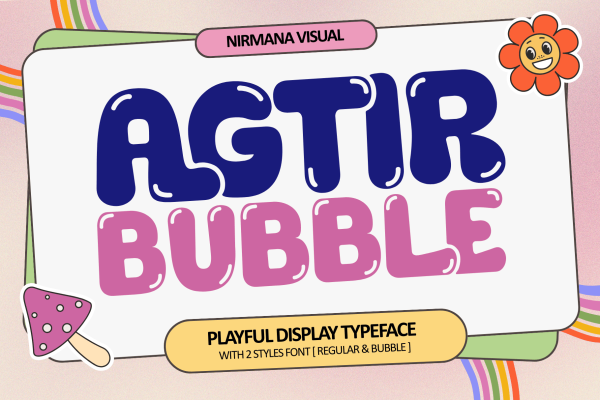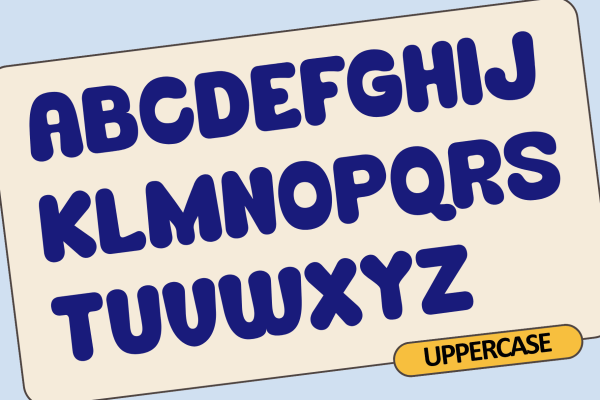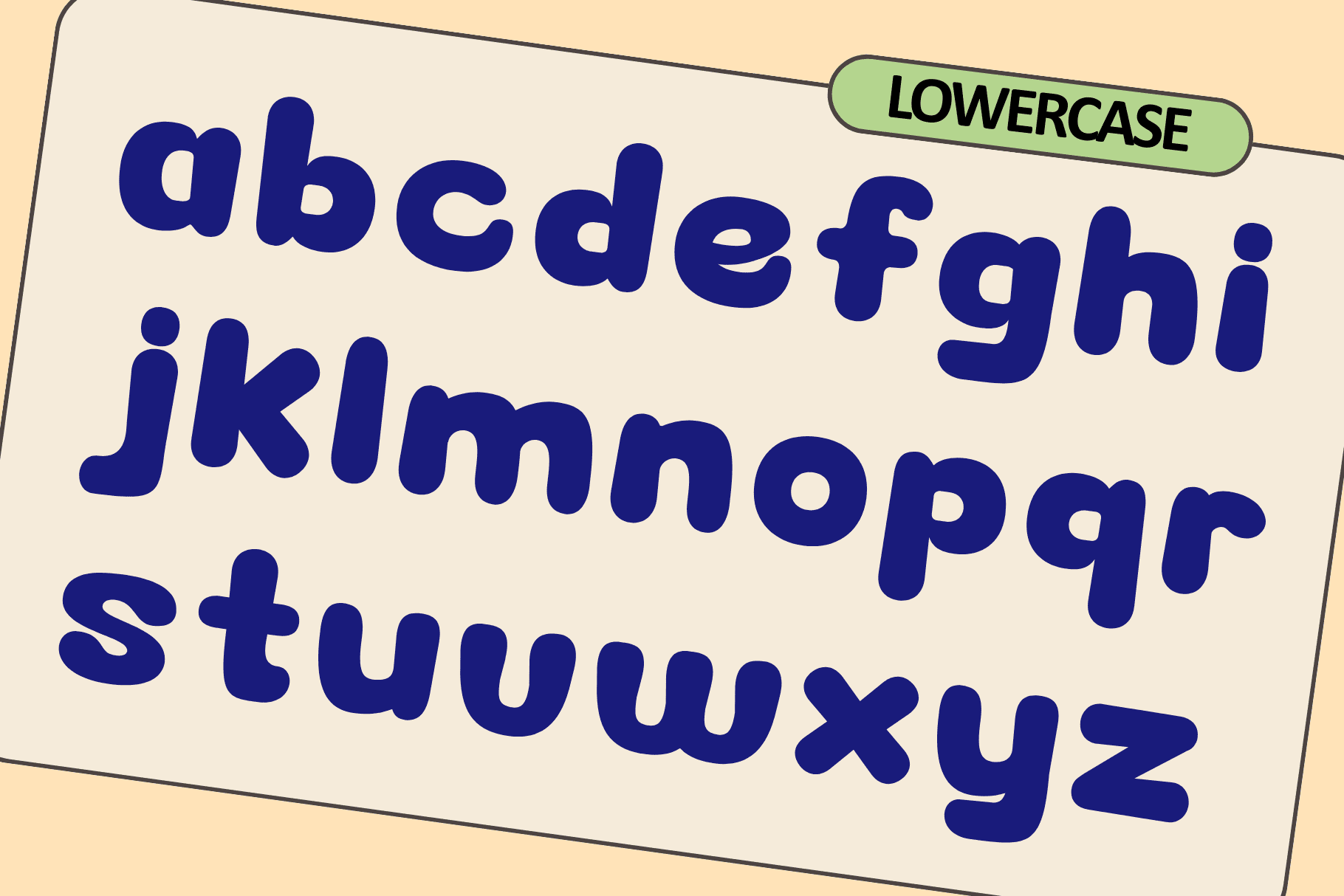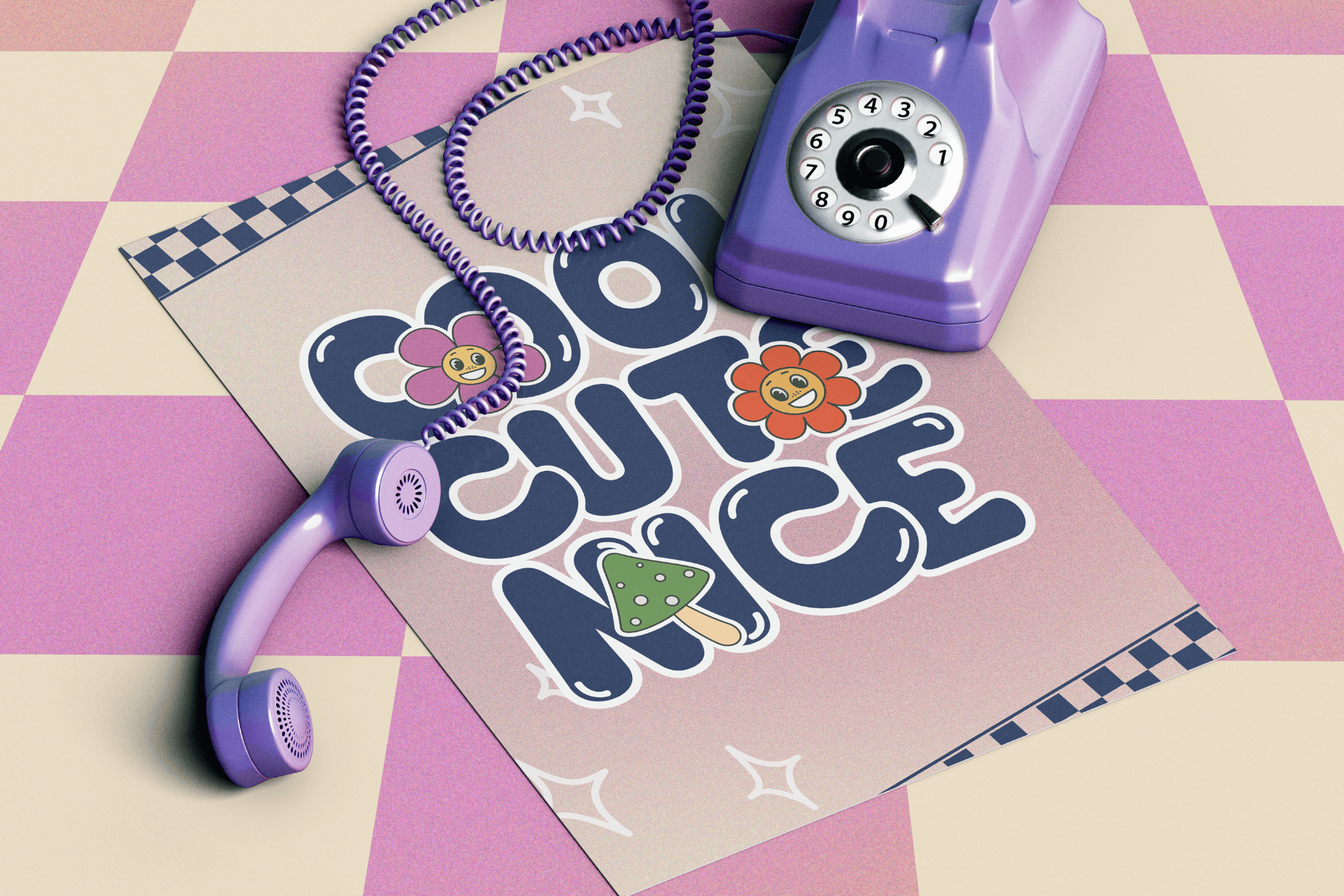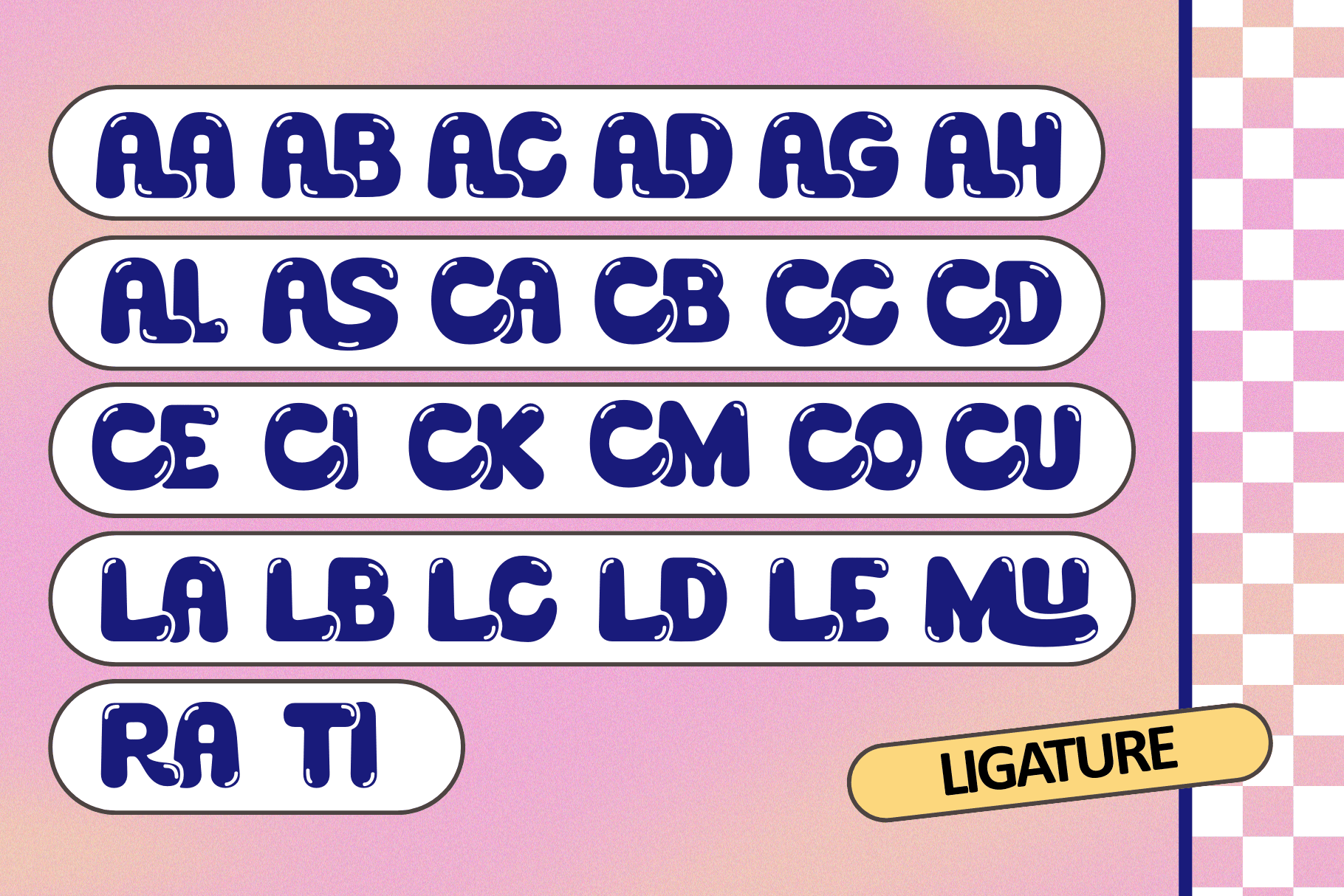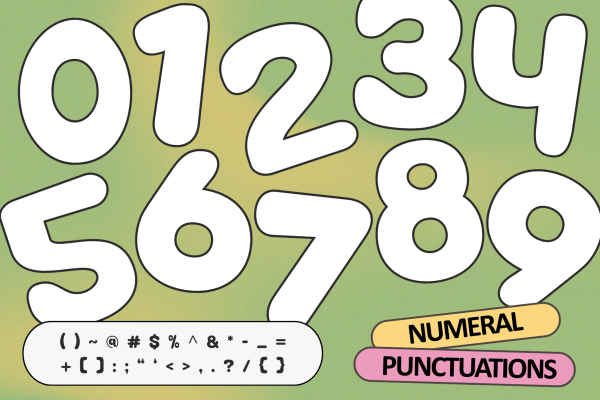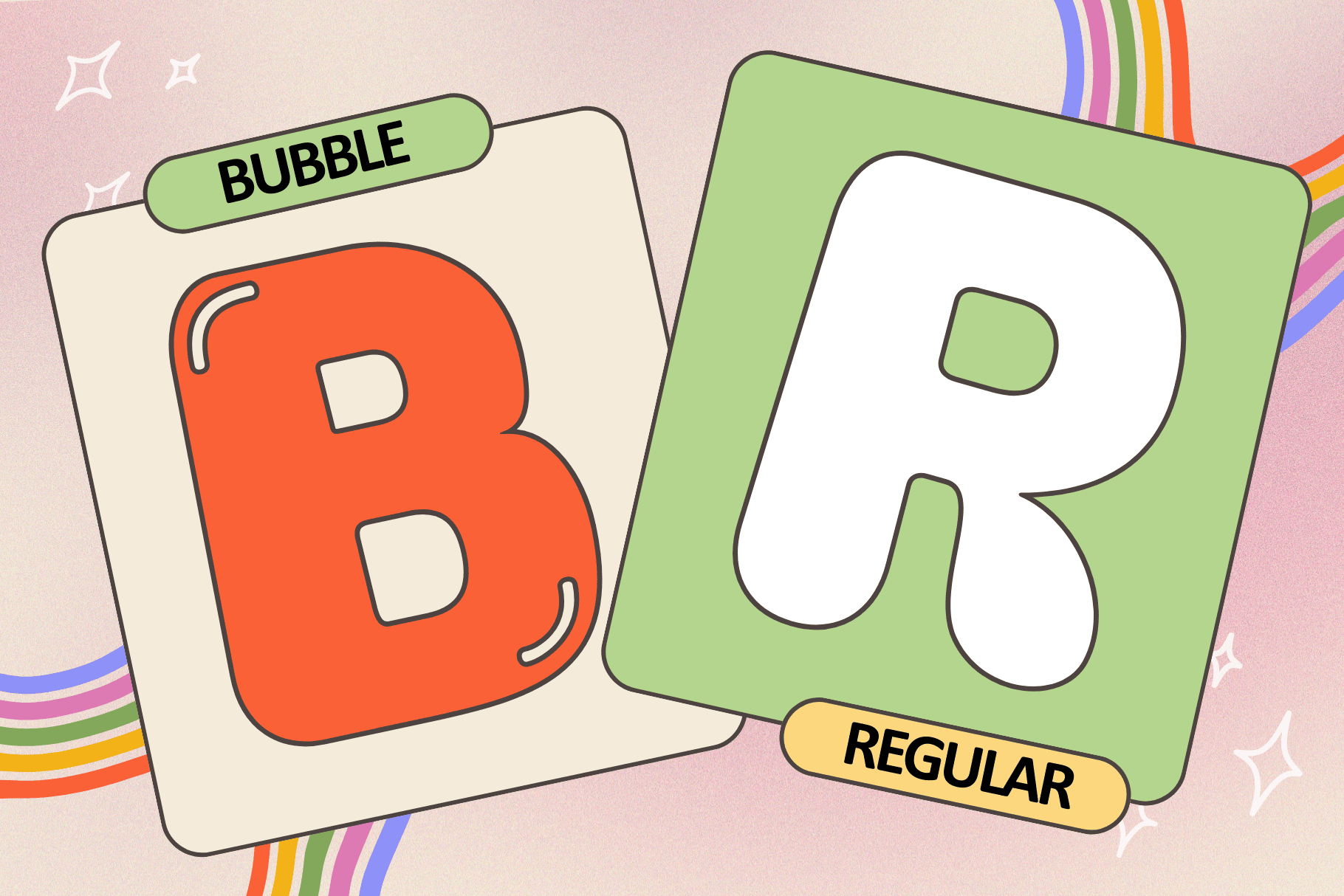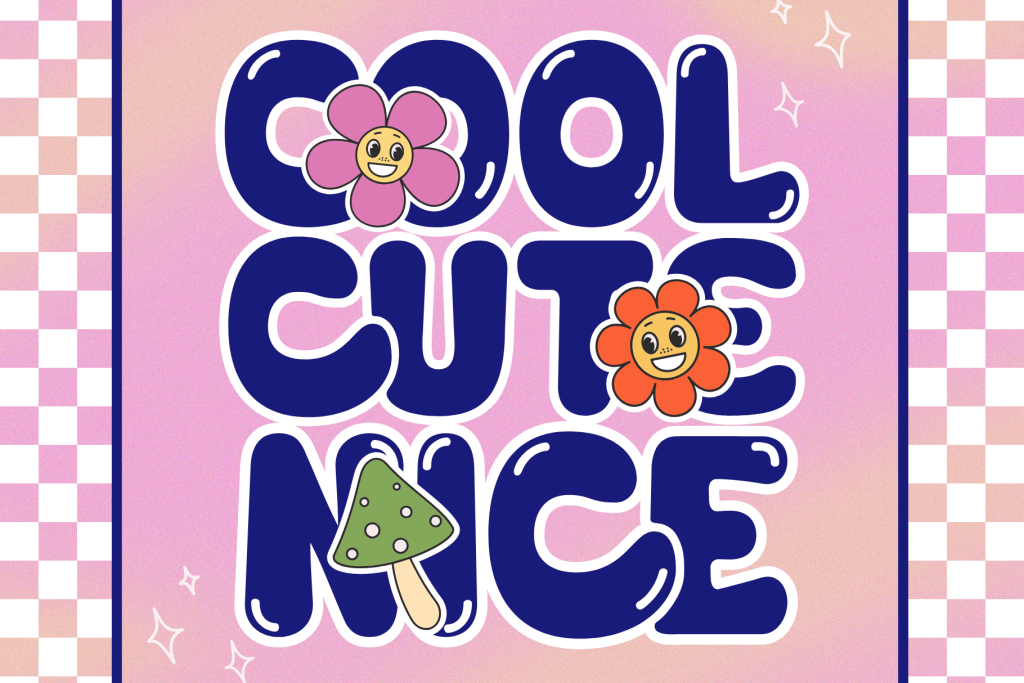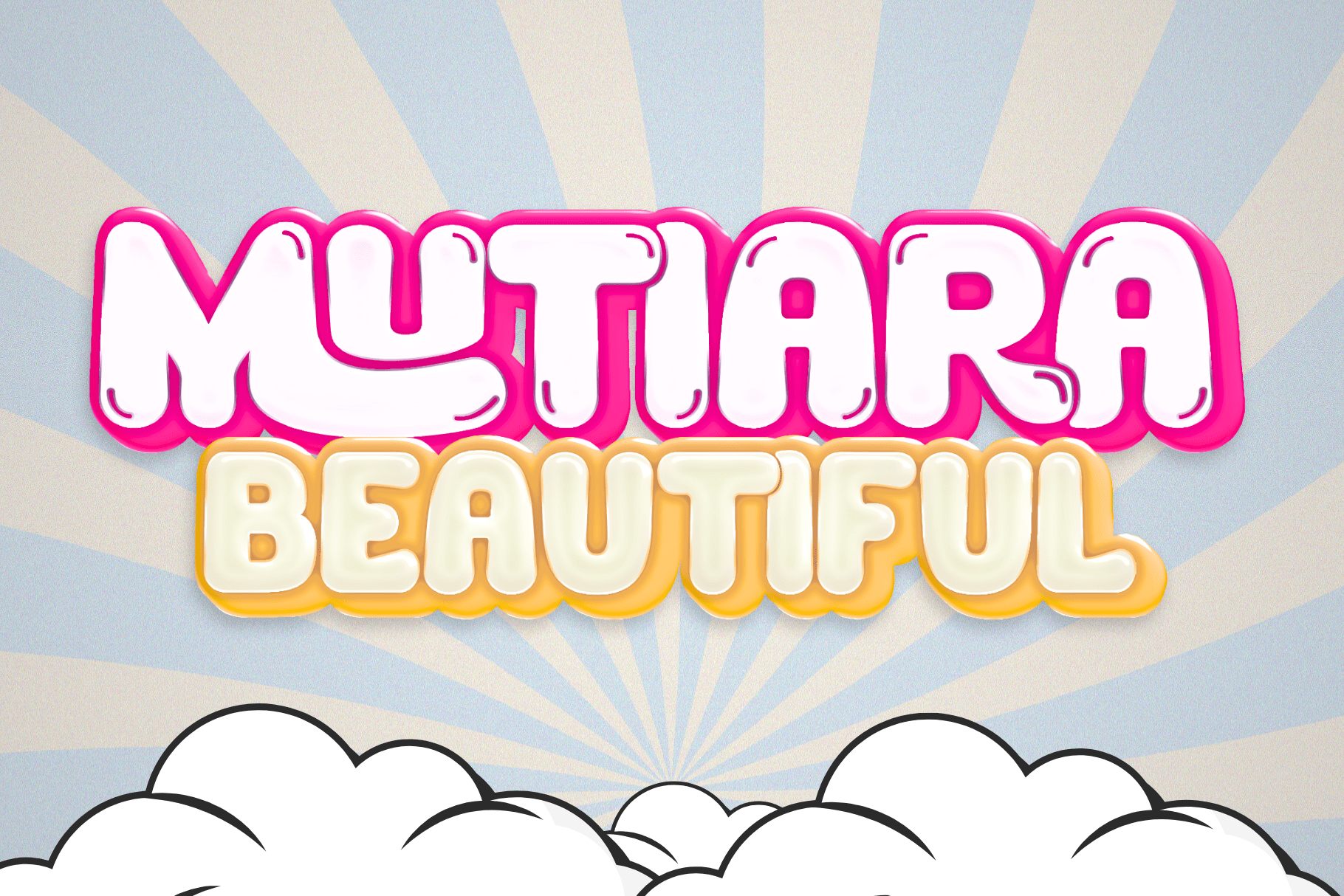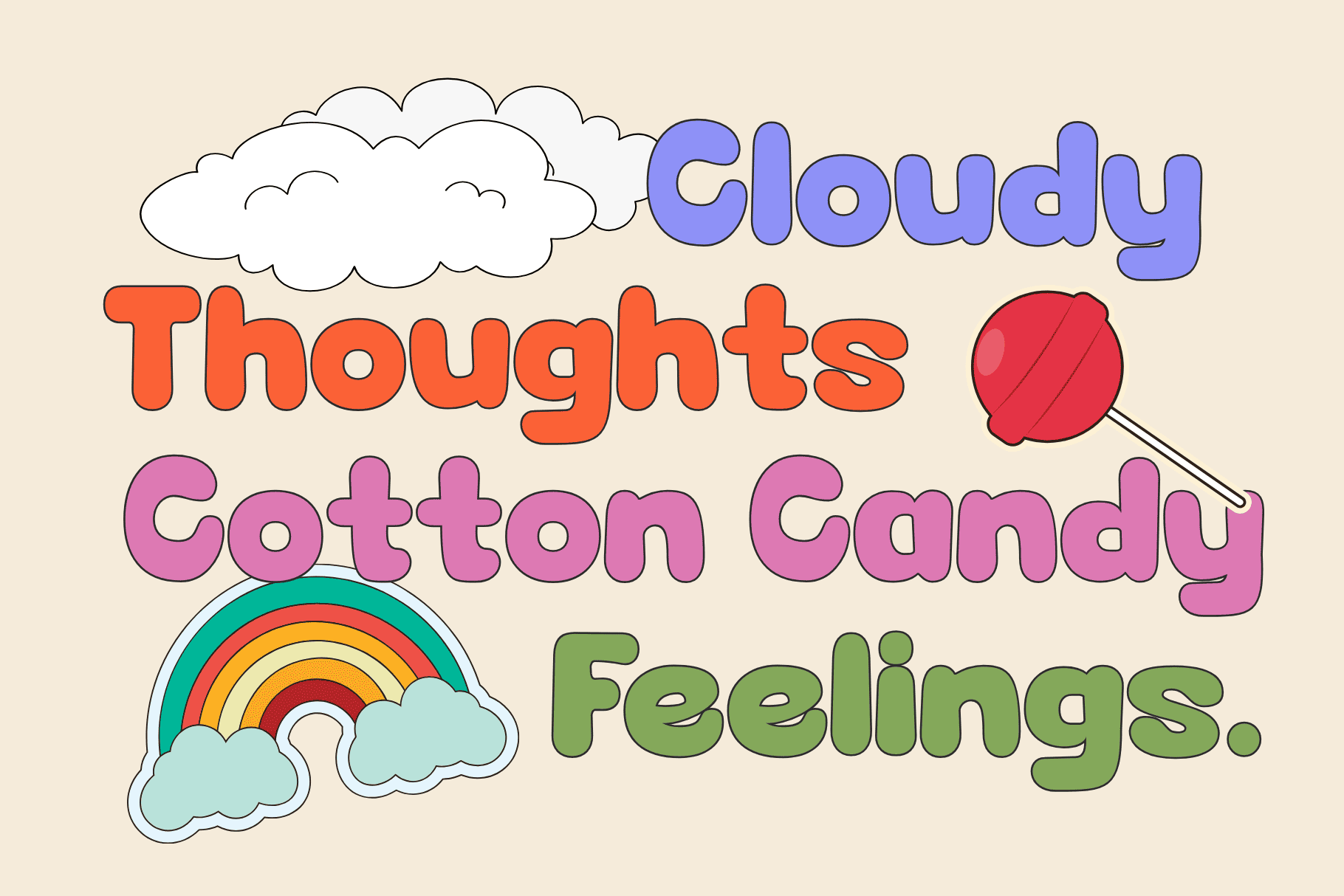
Agtir Bubble offers beautiful typographic harmony for a diversity of design projects, including logos & branding, social media posts, advertisements & product designs.